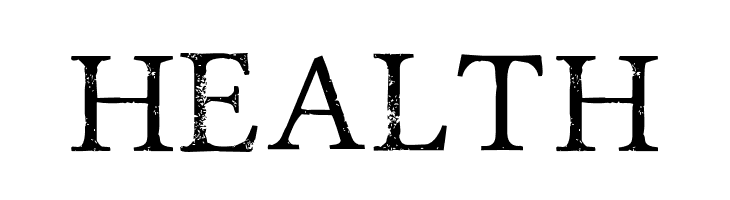
A playful, hand-drawn font with irregular, organic shapes and a whimsical style.
A bold, modern font with a vintage touch, perfect for impactful designs.
A sleek, modern font with elongated, thin letterforms and a condensed appearance.
A casual, handwritten font with a playful and informal style.
A playful, bold font with rounded, bubbly characters and a lively, informal style.
A bold, modern sans-serif font with excellent readability and versatility.
A clean, modern sans-serif typeface with uniform, well-proportioned characters.